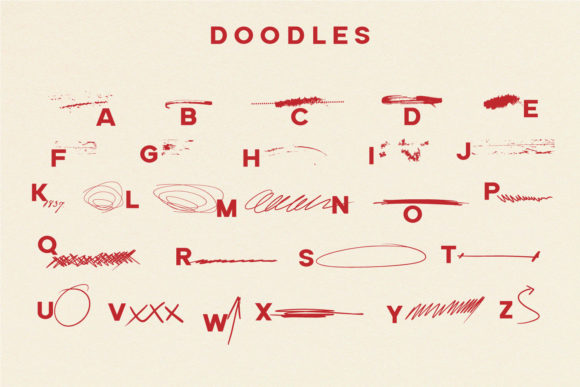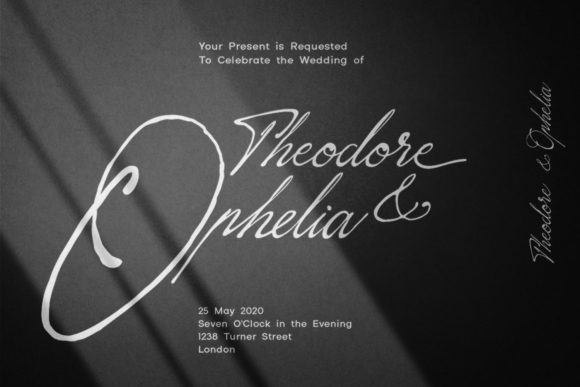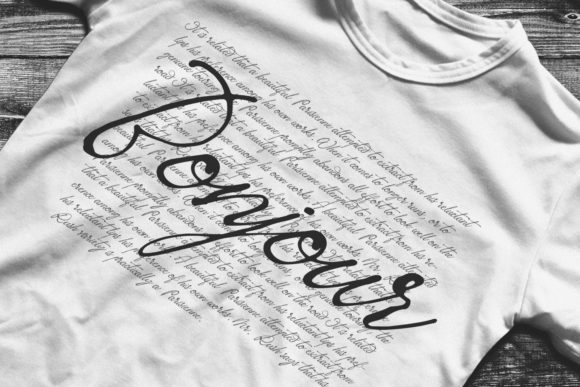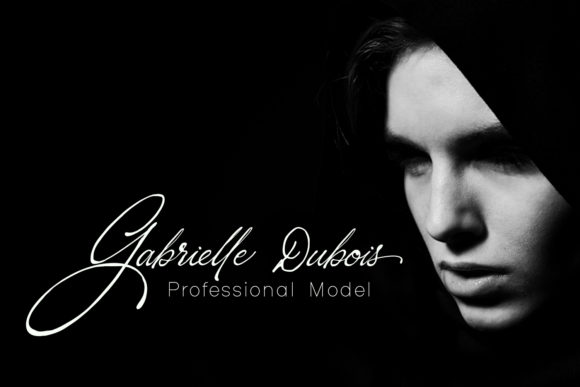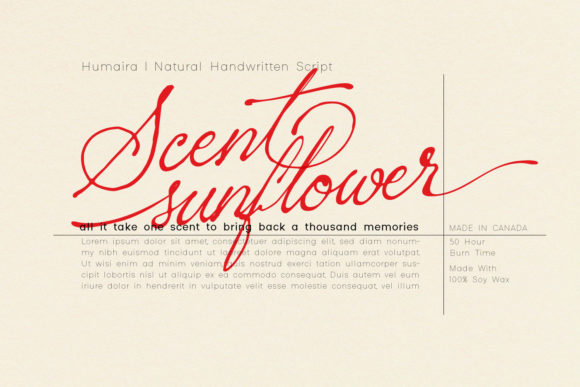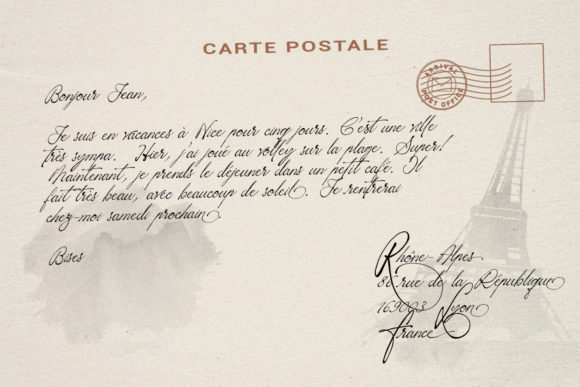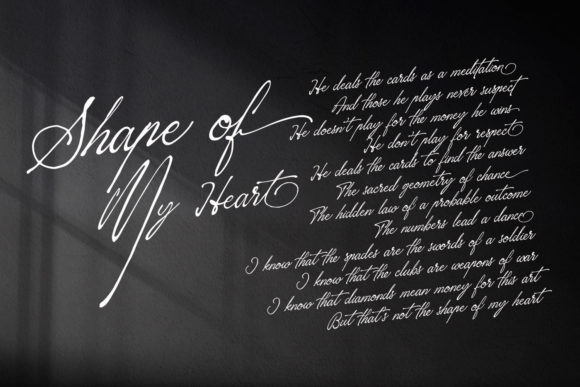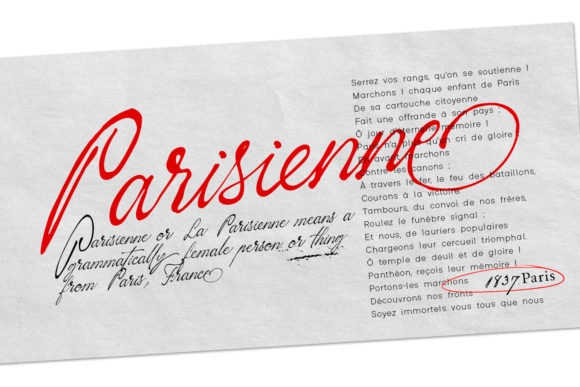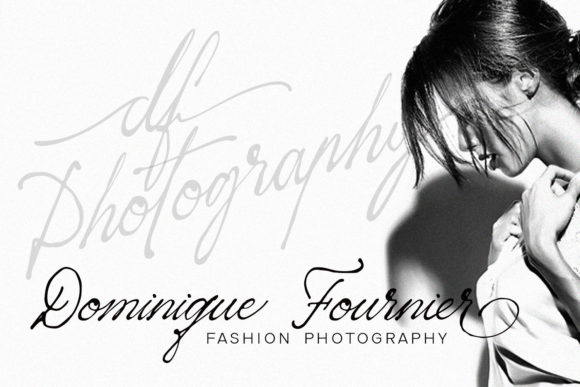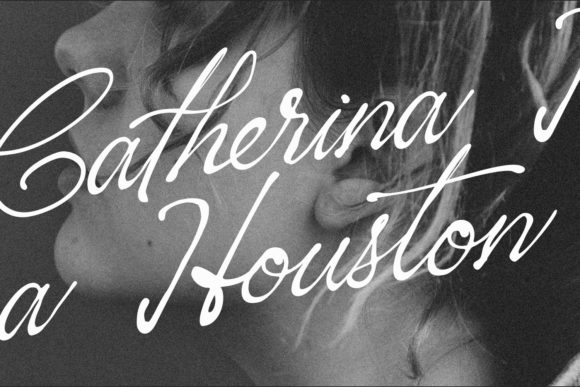
Sacred Letter Font
About Sacred Letter Font
Sacred Letter is a flowing and classic handwritten font, described by an elegant touch, perfect for your dearest projects. Fall in love with its incredibly distinct and timeless style and use it to create spectacular designs!